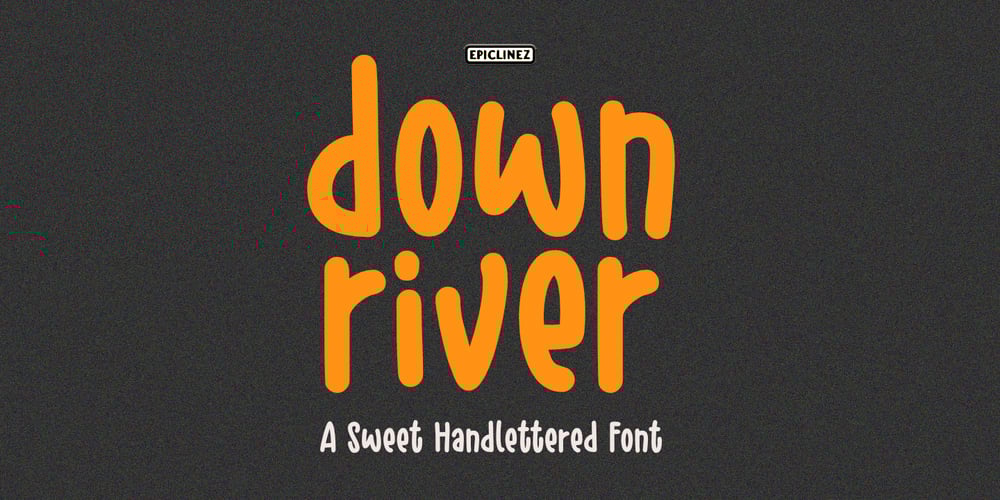
Down River Font Family was designed by Aldy Sidik and published by Epiclinez. Down River contains 1 styles and family package options. Down River is a sweet hand-lettered font. This smooth buttery font is a perfect companion for your next design project!